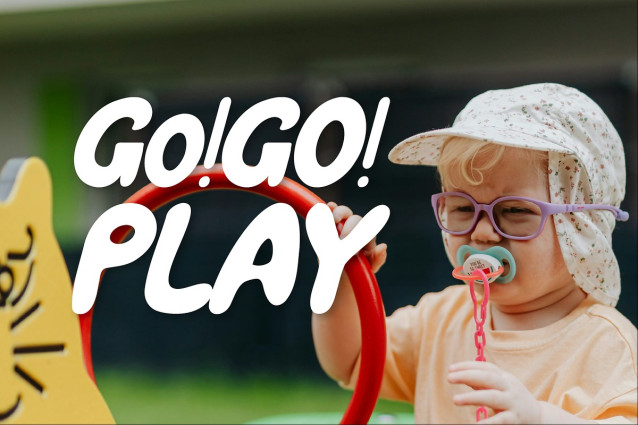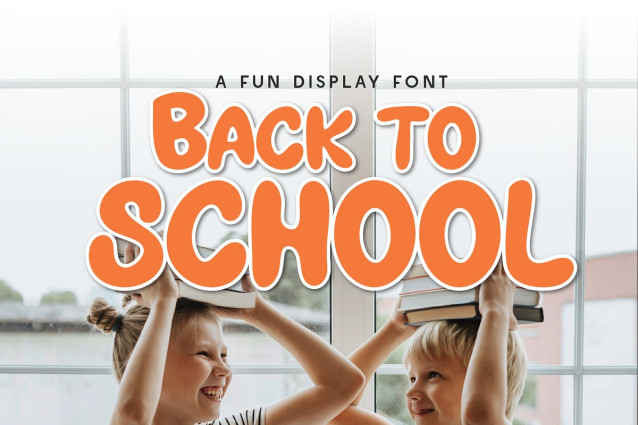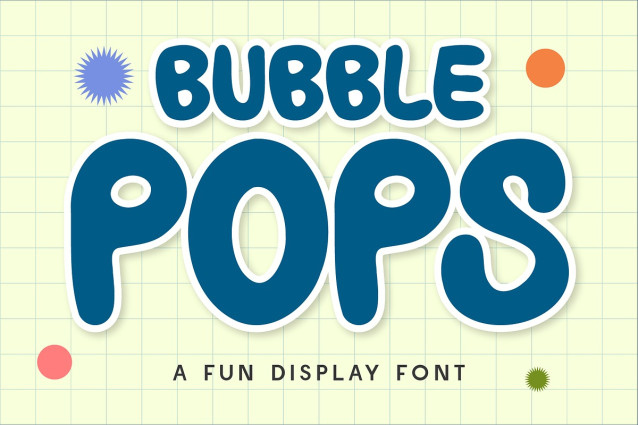
CF Bubble Pops Font
CF Bubble Pops Font a cheerful display font full of bold curves and bouncy energy! Crafted with soft rounded edges and a thick, juicy style, Bubble Pops instantly adds fun, friendliness, and approachability to any project.
The exaggerated forms and bubbly personality of Bubble Pops ensure high readability while keeping a lively and youthful vibe.